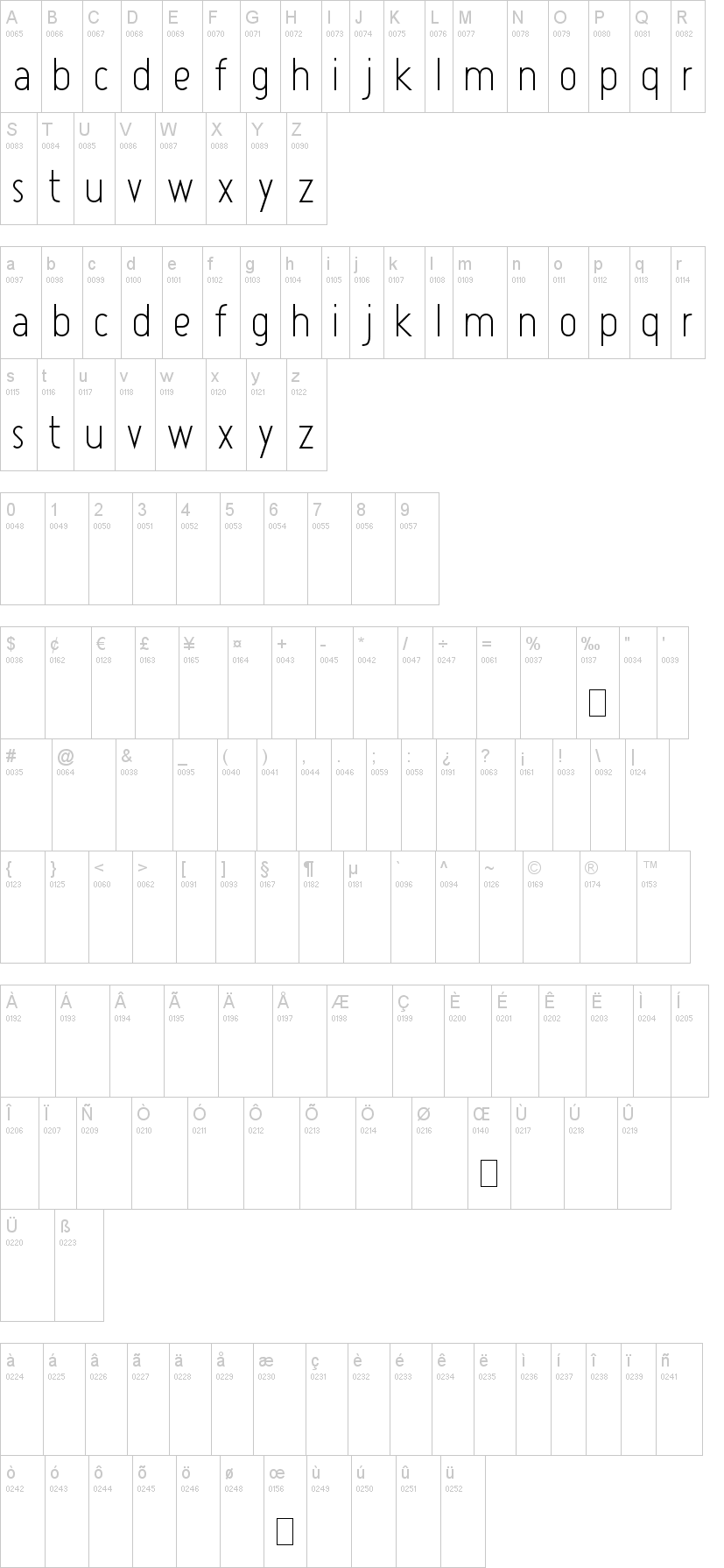
Шрифт Atype 1
Atype 1 is a work in progress, comprending several families exploring the themes of simplicity, readability and infinite variation on a theme.